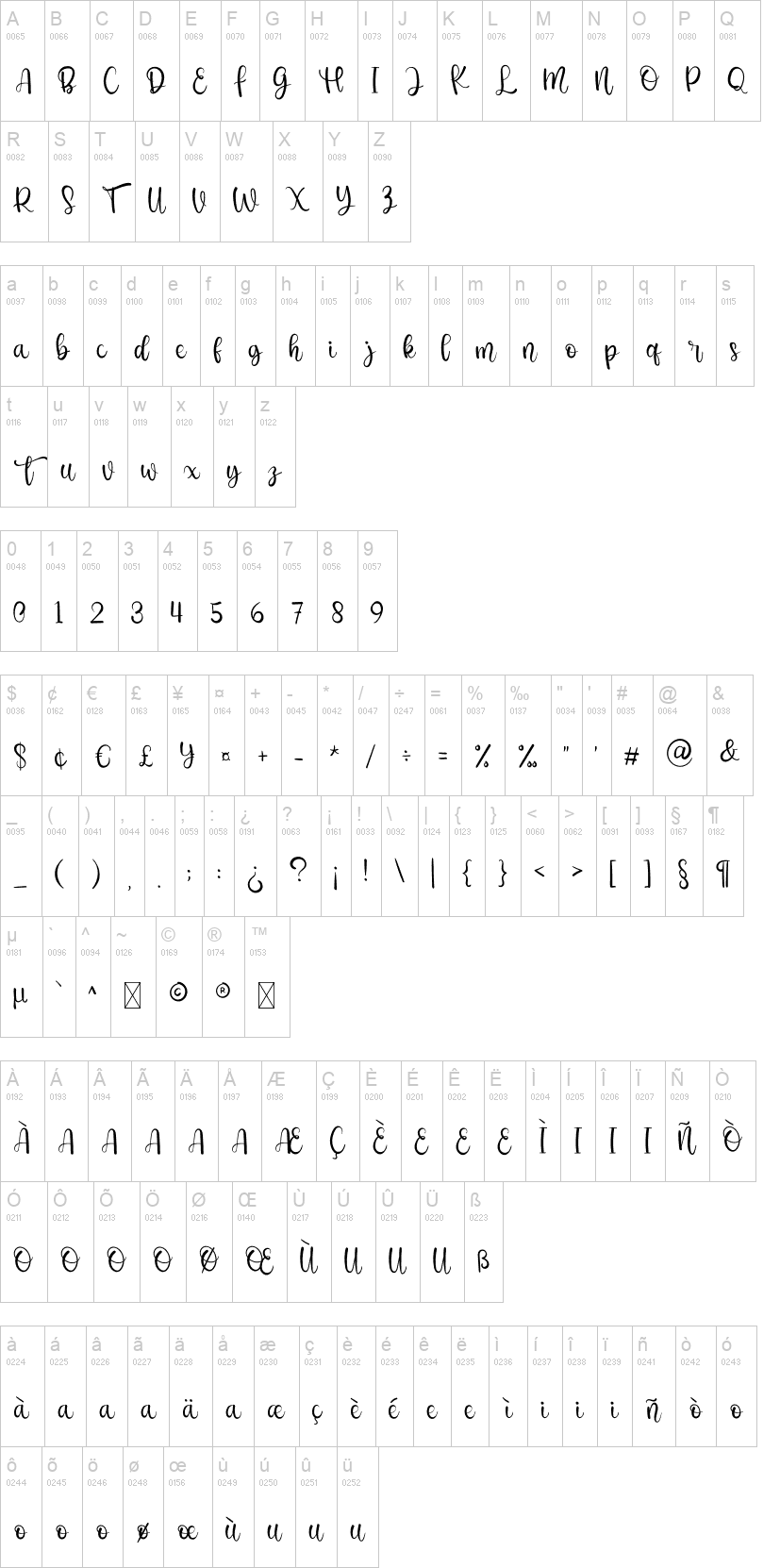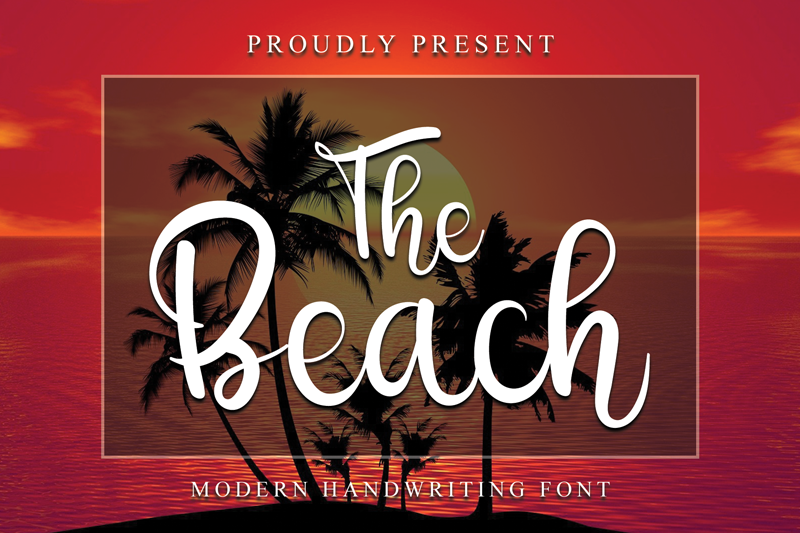
Note of the authorThe Beach is a chic, refined script font that emanates sophistication and elegance. Its stylish alternates and ligatures make this font the perfect match for any project.